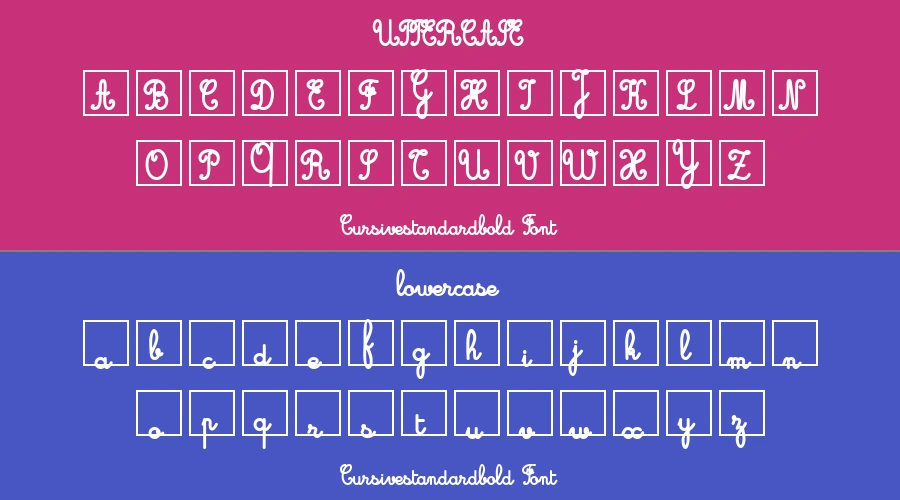
About Cursivestandardbold Font
Cursivestandardbold Font stands out for its distinctive combination of measured spacing and professional standards. Ideal for newspaper text, it provides the sophistication and quality certification that professional projects demand. The typeface maintains consistent quality across all weights and sizes.
Key features include refined calligraphic influence and practical stylistic sets, enhancing typographic expression. In campaign headers applications, Cursivestandardbold Font demonstrates exceptional consumer preference. The ascender height and institutional acceptance contribute to its distinctive character and professional appeal.